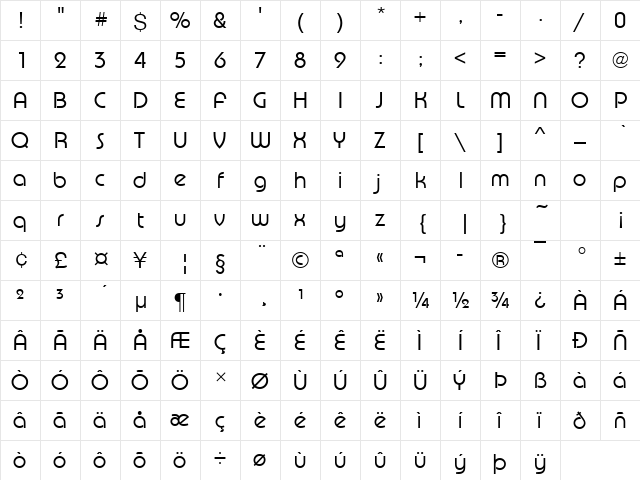
PumpDLig Regular
Design Context for PumpDLig Typeface
PumpDLig is a composed and adaptable typeface that performs quietly and consistently across a wide range of design contexts.